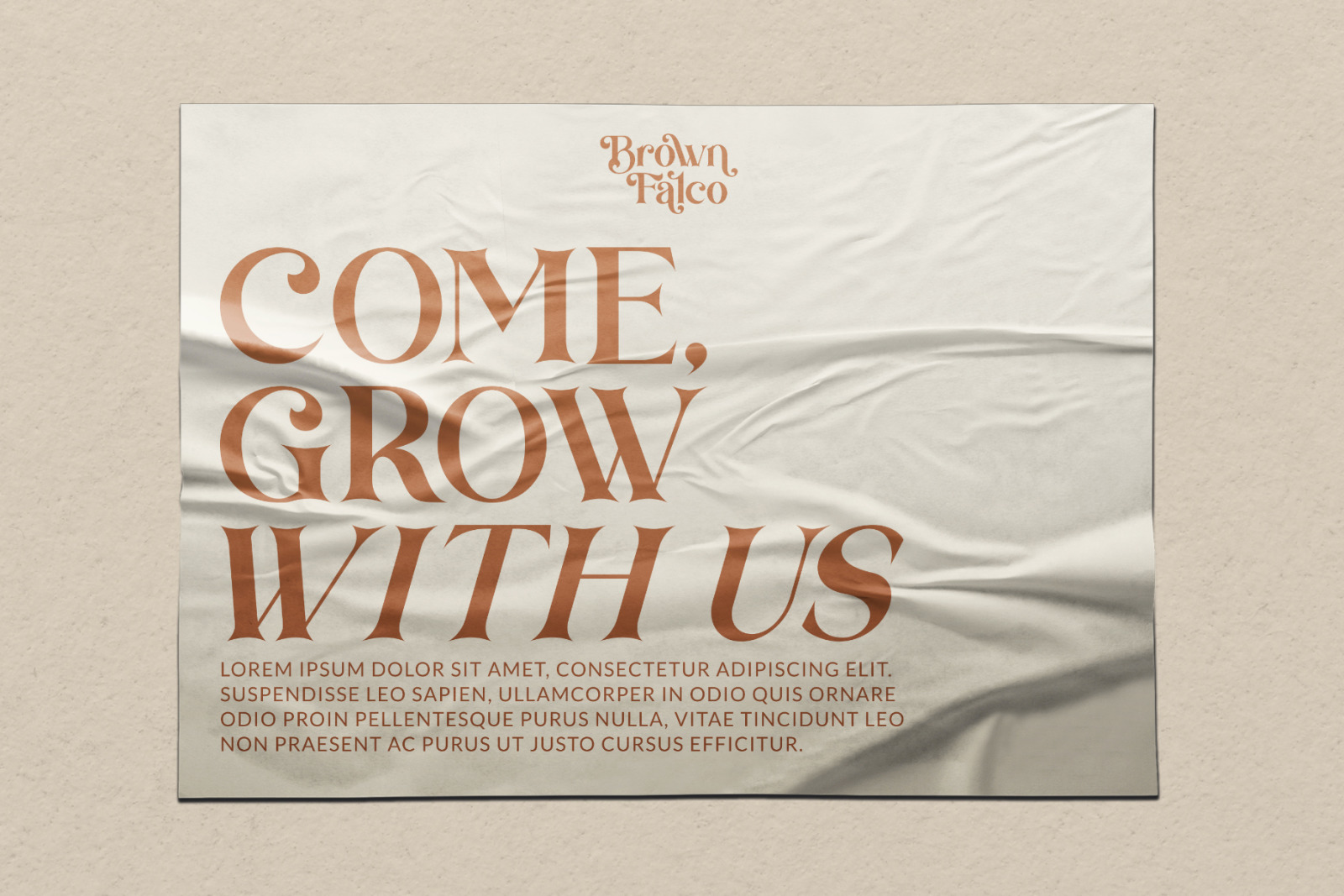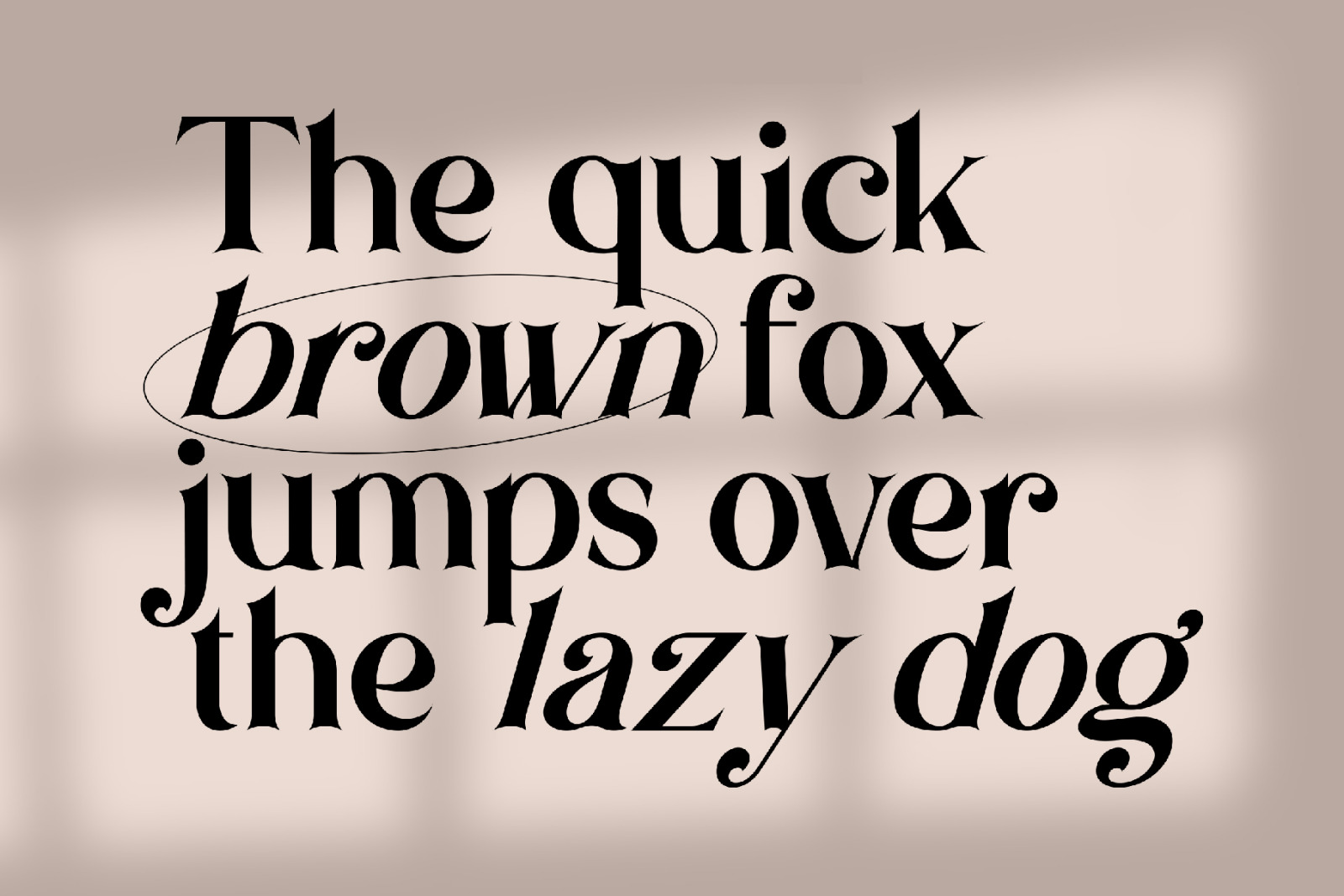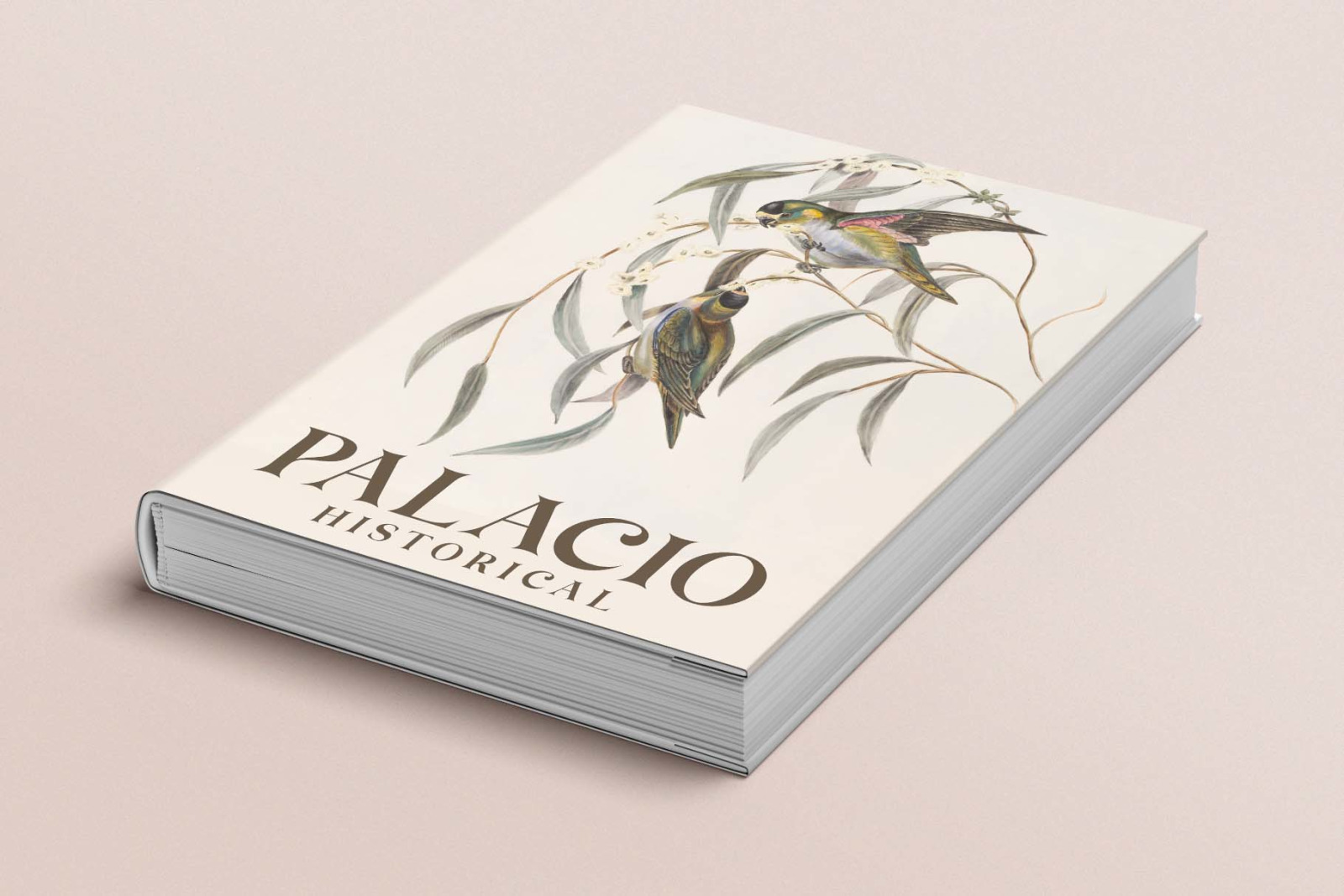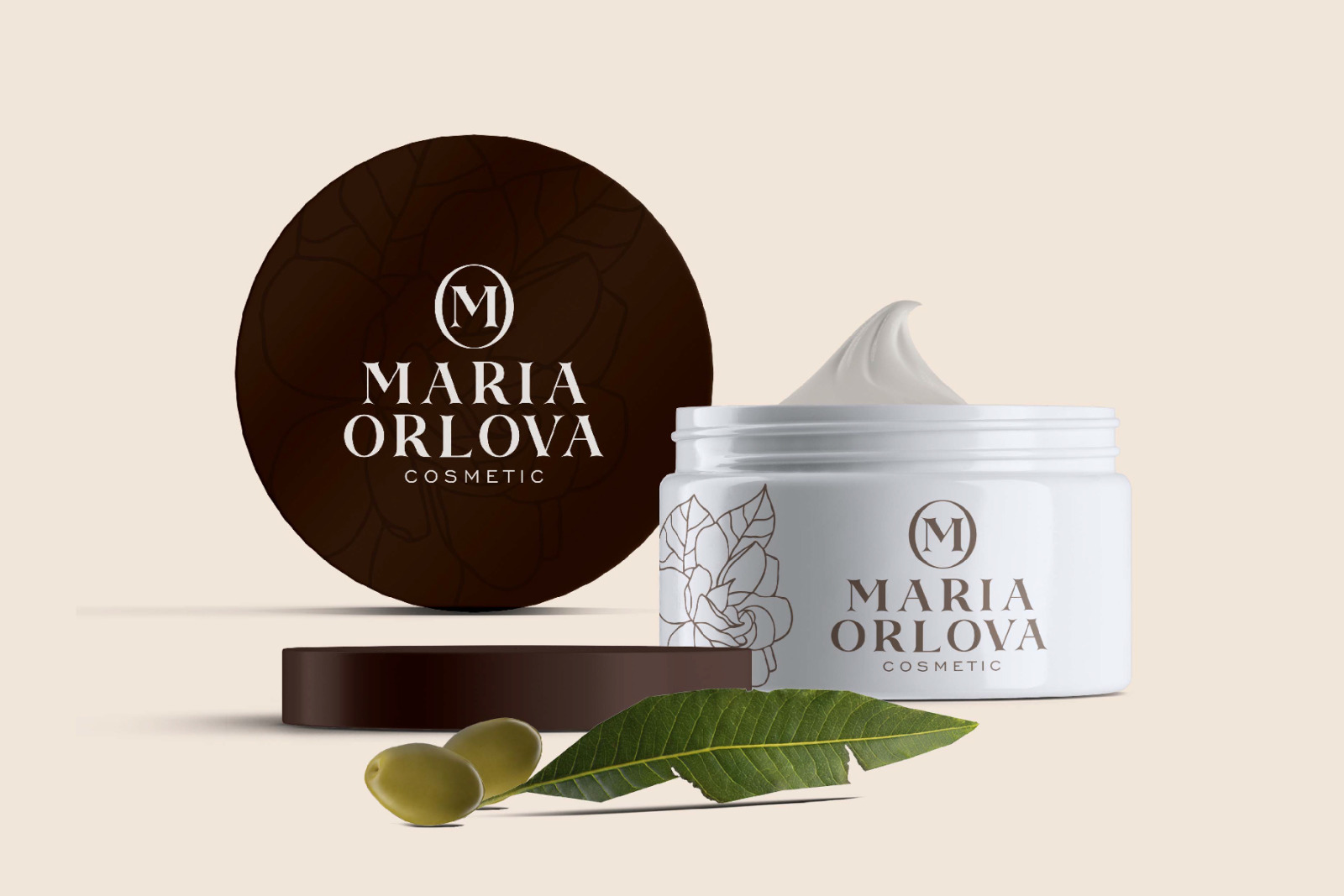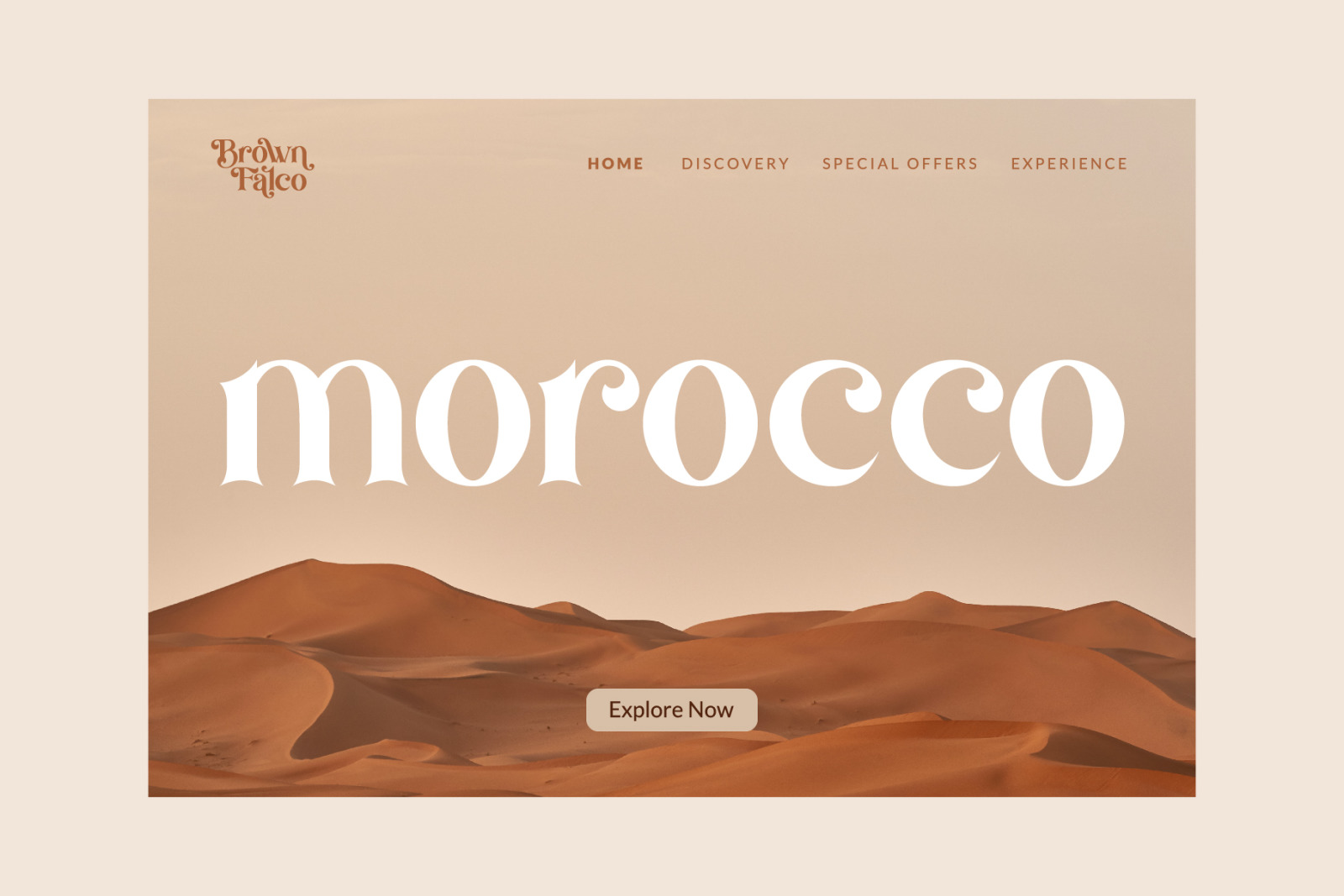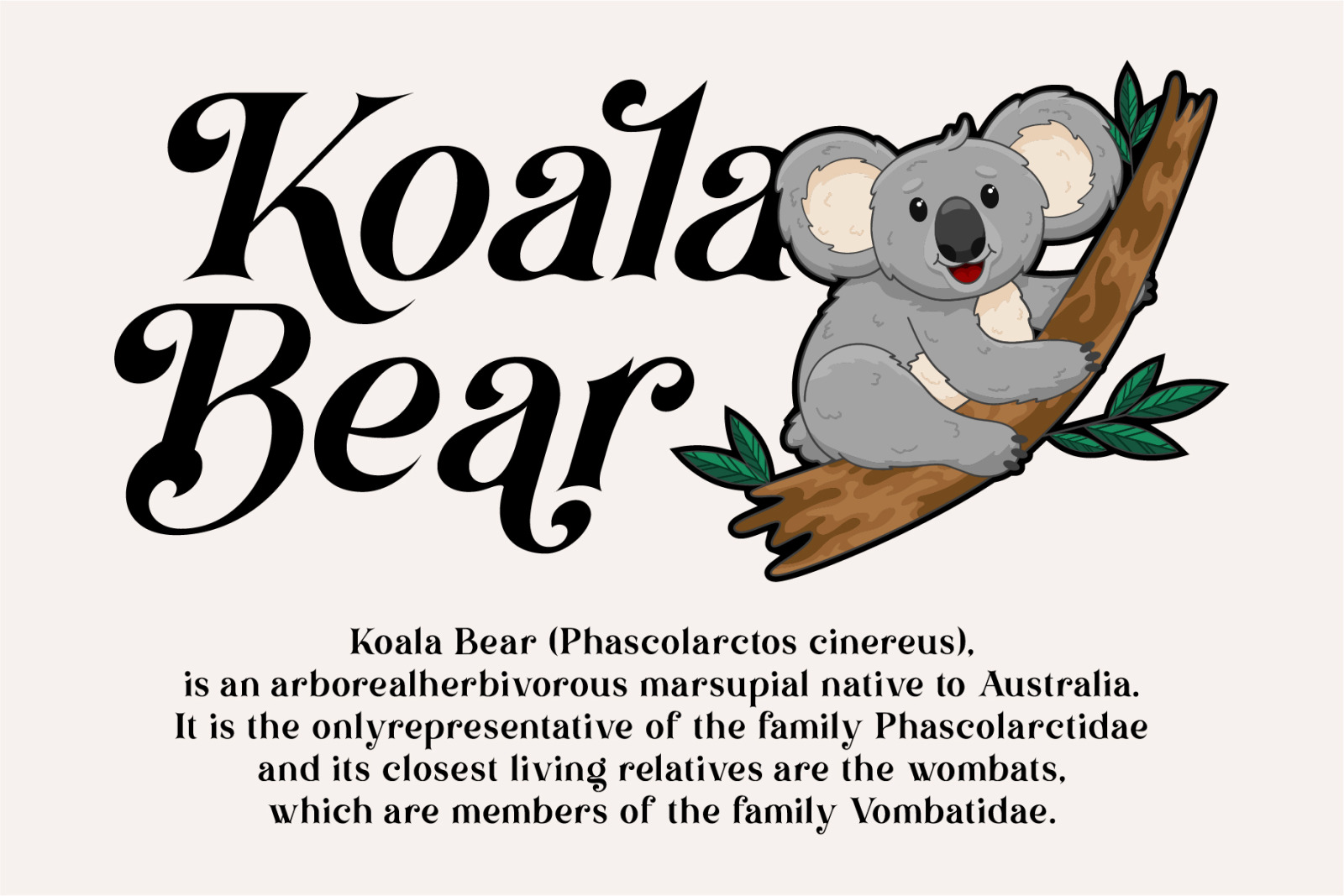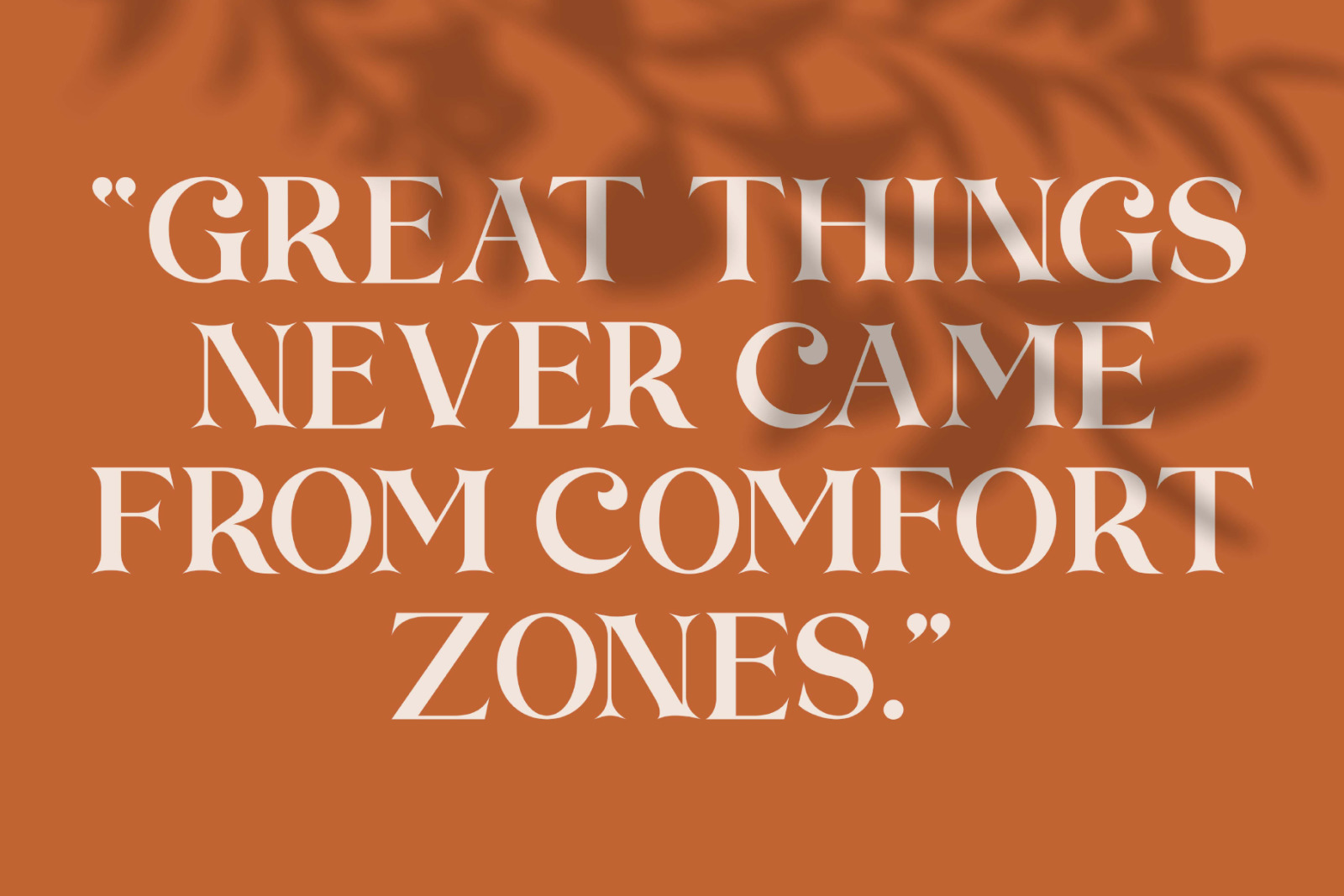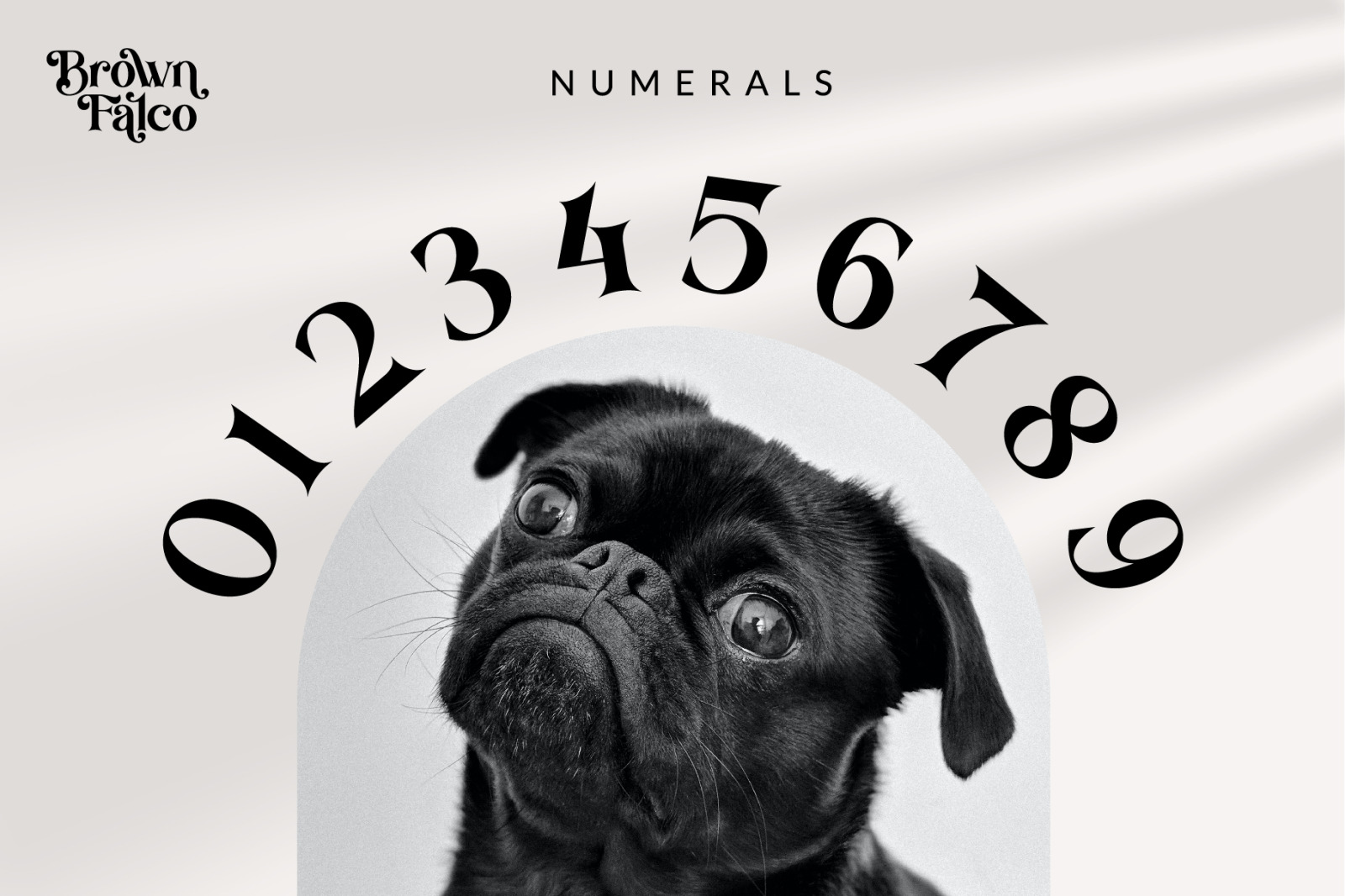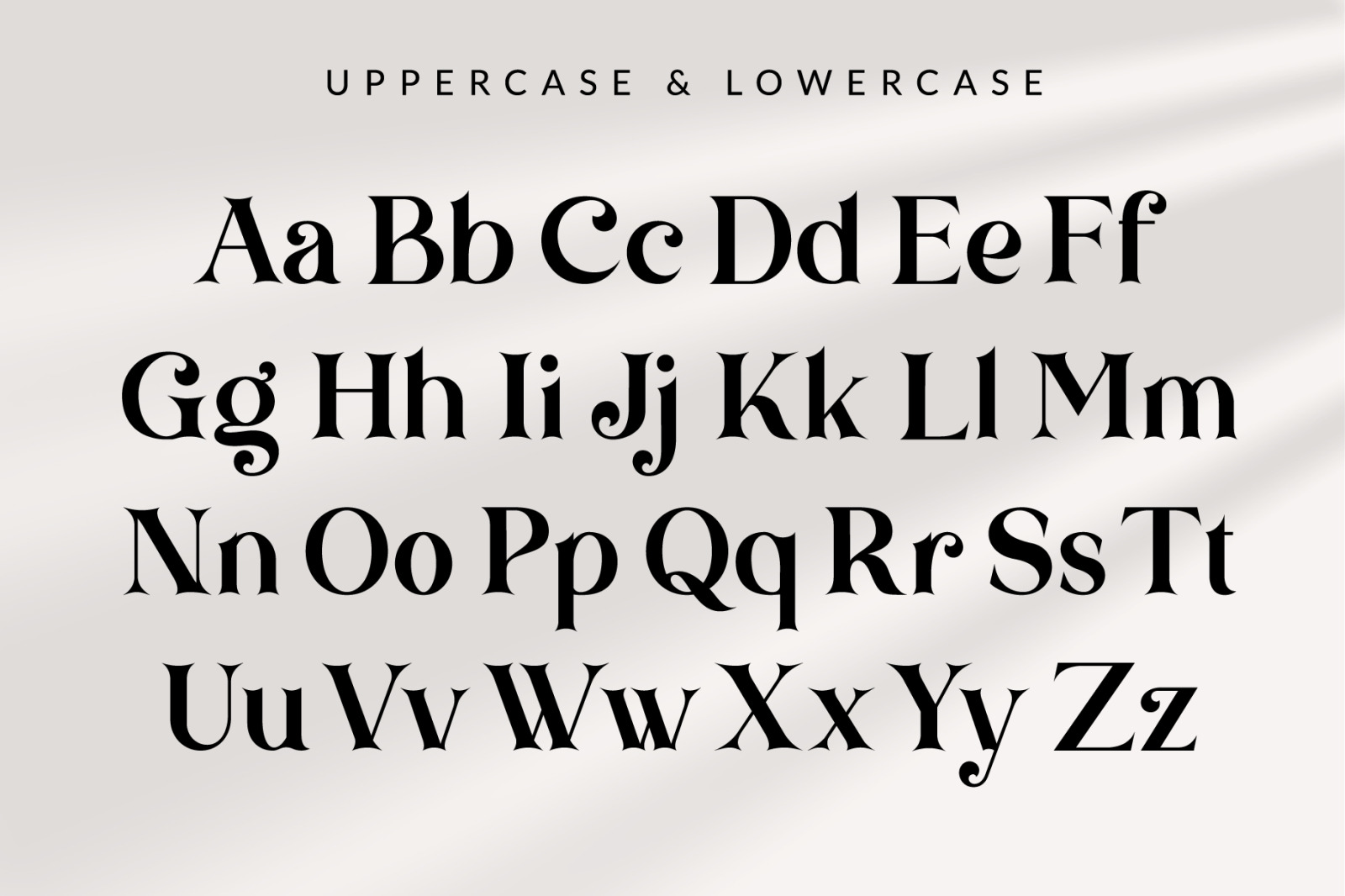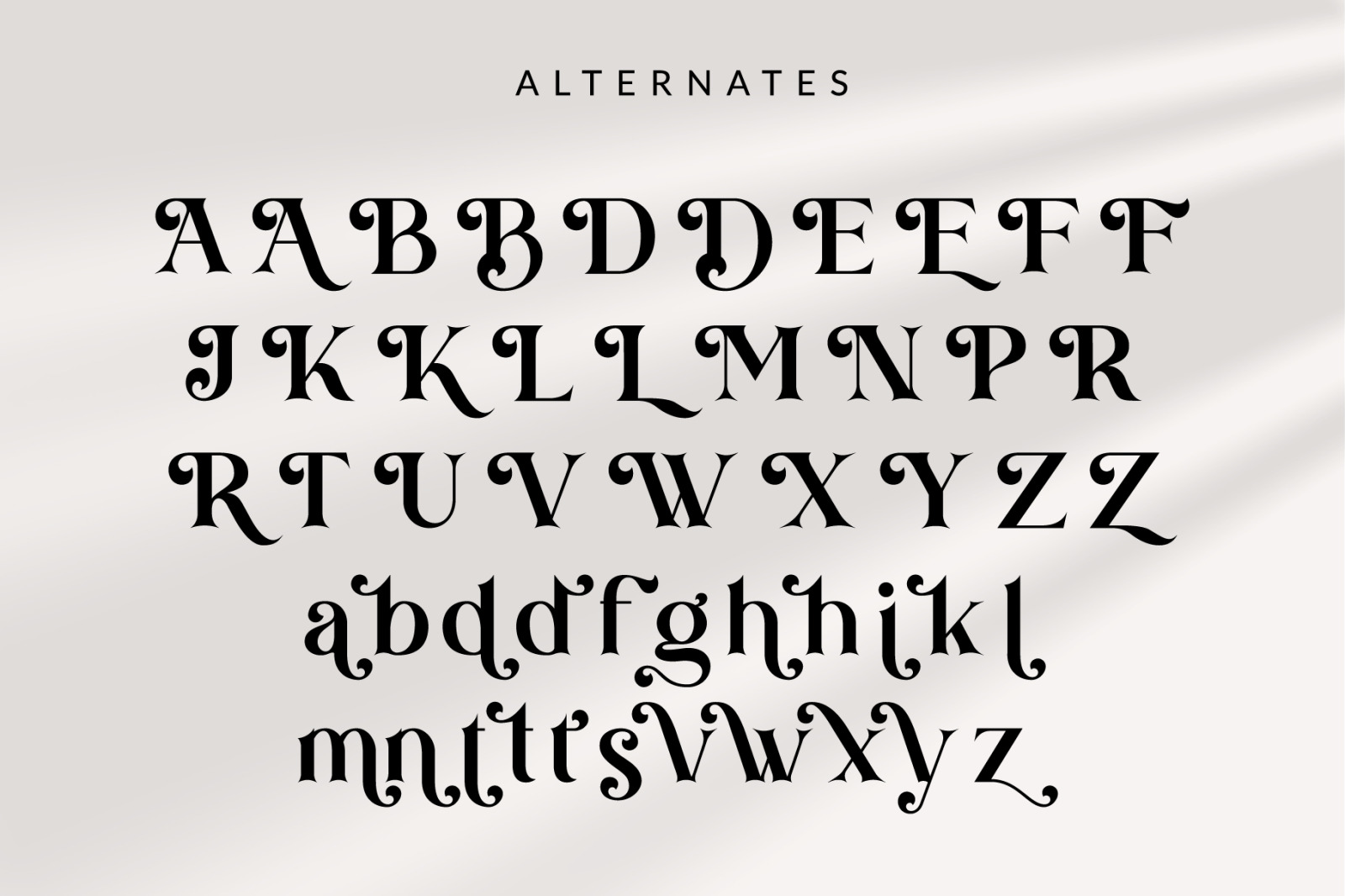
Brown Falco | classy Serif font
Brown Falco
we created especially for branding needs, with an alternate in unique shape adds value to your brand. It is so nice to leverage designers or product owners that need solutions to make their design look more classic and elegant. And especially for satisfy font, support multilingual languages, numbers, punctuation, and alternative.
Create a unique & beautiful logotype, use it as an elegant solution for your next magazine layout, or choose BrownFalco for any graphics that require a sleek look with an elegant flair.